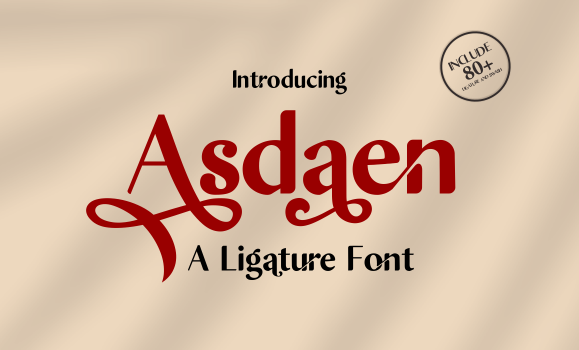
asdaen
Asdaen Font – Free Download Introduction to Asdaen Font Asdaen is an elegant and unique font that uses ligature to link letters perfectly, to make each of your projects look spectacular. 📸 Preview Gallery 6 images 📌 Product Name Asdaen